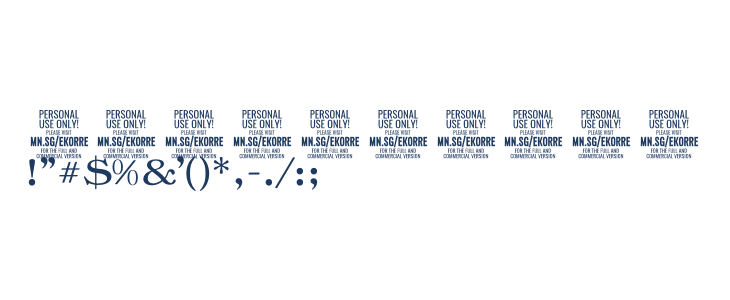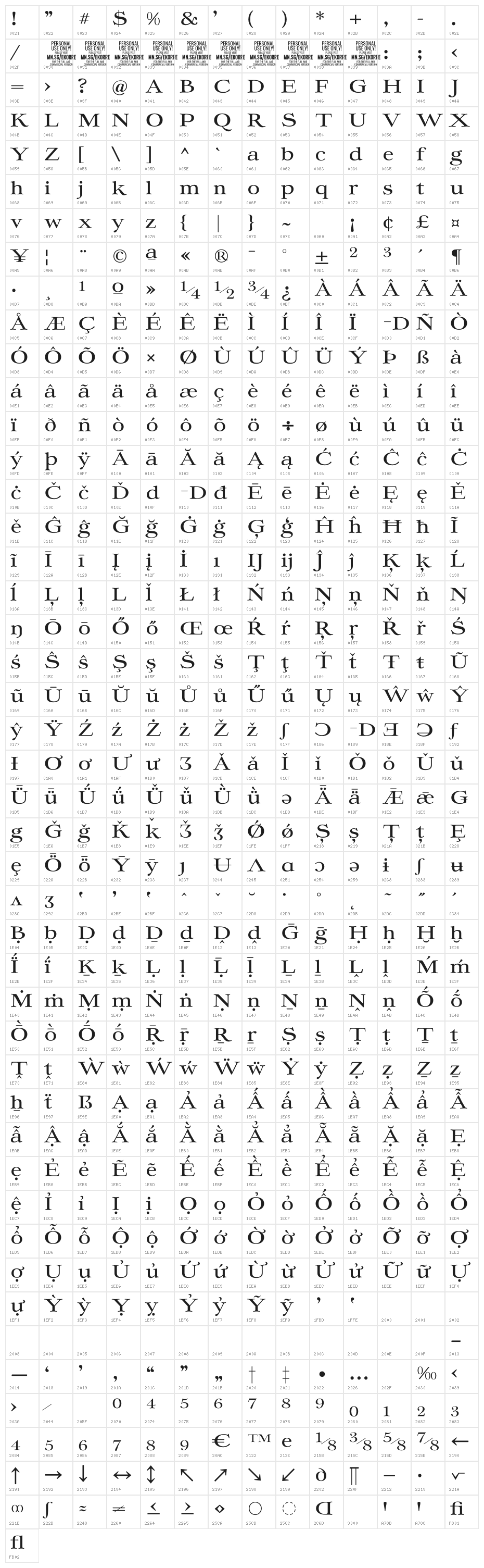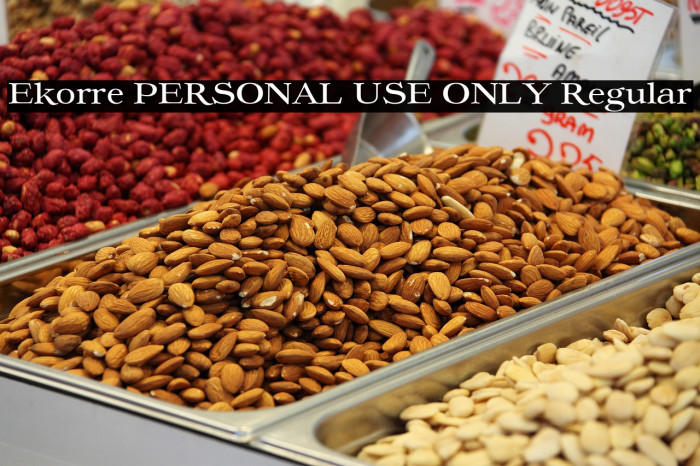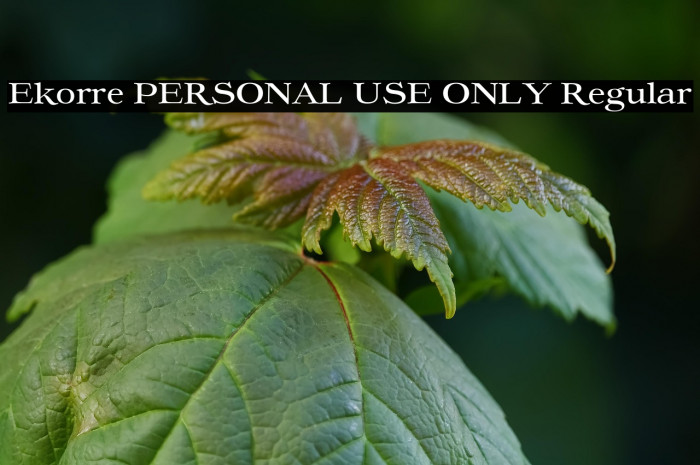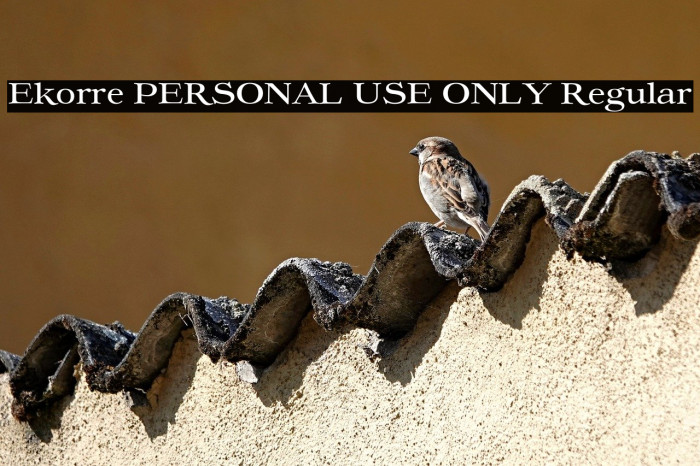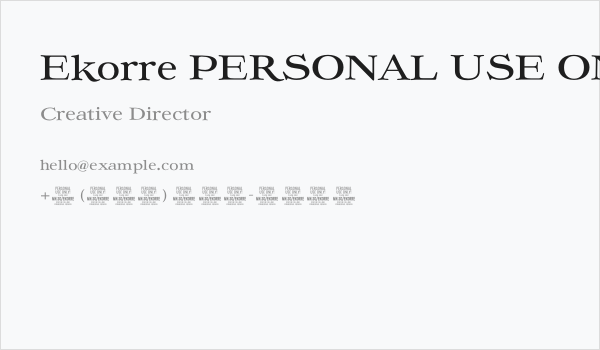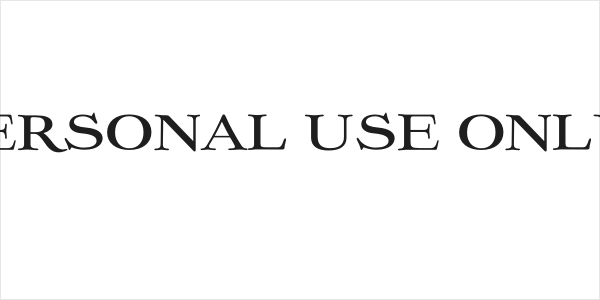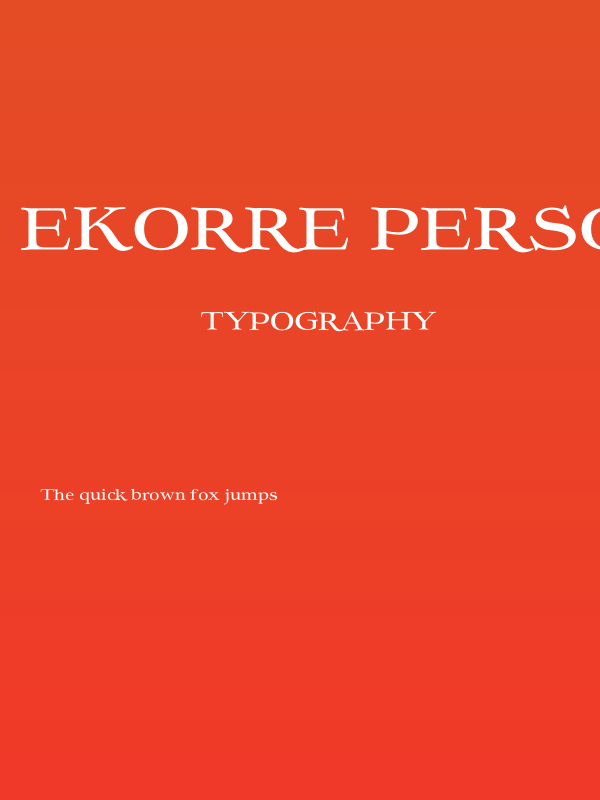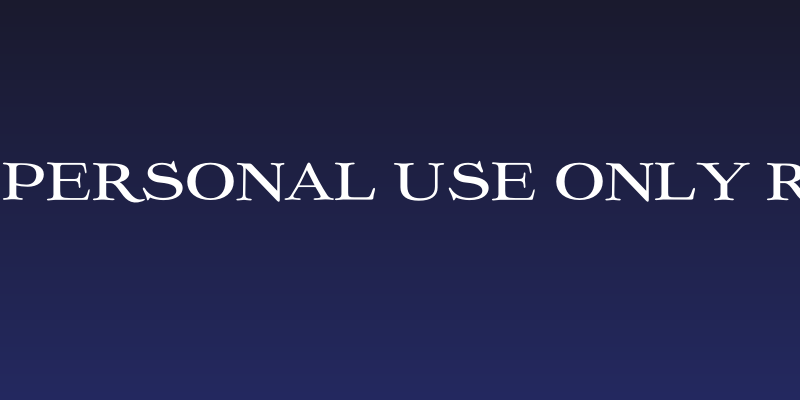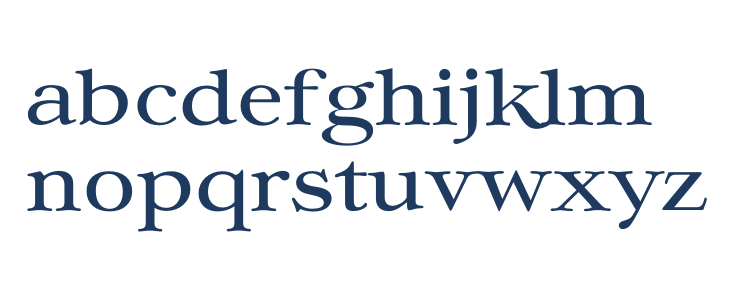
Ekorre PERSONAL USE ONLY Regular Font
Ekorre PERSONAL USE ONLY Regular Description
This font exhibits a classic serif style with elegant and refined strokes. The uppercase letters are bold and commanding, while the lowercase letters maintain a graceful balance with slightly rounded edges. The serifs are pronounced, adding a touch of sophistication and tradition. The numbers and special characters are consistent with the overall style, providing a cohesive look. The font's design is suitable for projects that require a formal and timeless appearance.
| Proposed Projects | Ideal for book covers, formal invitations, branding materials, and editorial design. |